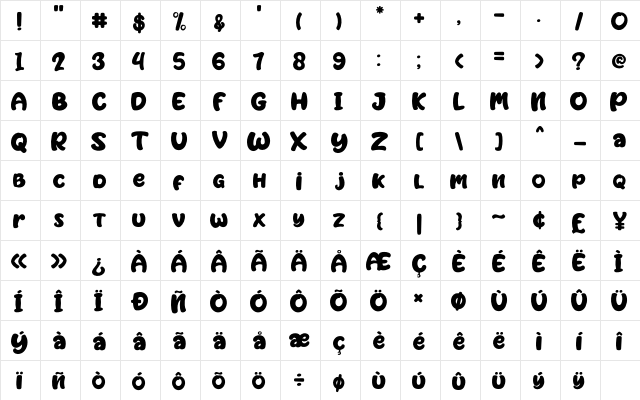
Jackdean Regular
Design Context for Jackdean Typeface
Jackdean is a composed and adaptable typeface that performs quietly and consistently across a wide range of design contexts.